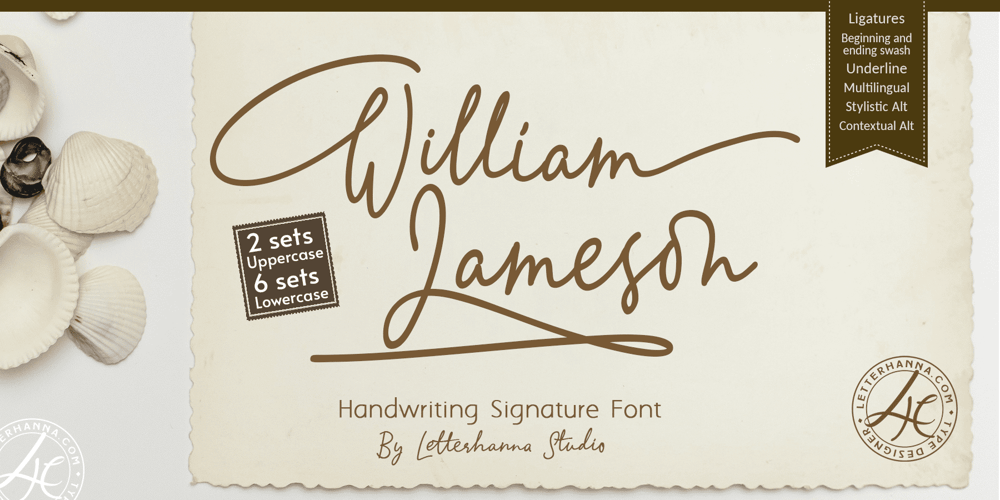
William Jameson Font Family was designed by Rinaldo Hasibuan and published by Letterhanna Studio. William Jameson contains 1 styles and family package options. William Jameson is a monoline signature handwritten font. Its distinct and well rounded letters make this font a masterpiece. Fall in love with its incredibly versatile style and use it to create spectacular designs!William Jameson is made using opentype technology which makes the connection between letters more fluid, there are 3 types of tails in each letter that will automatically change according to the letters in front of it.